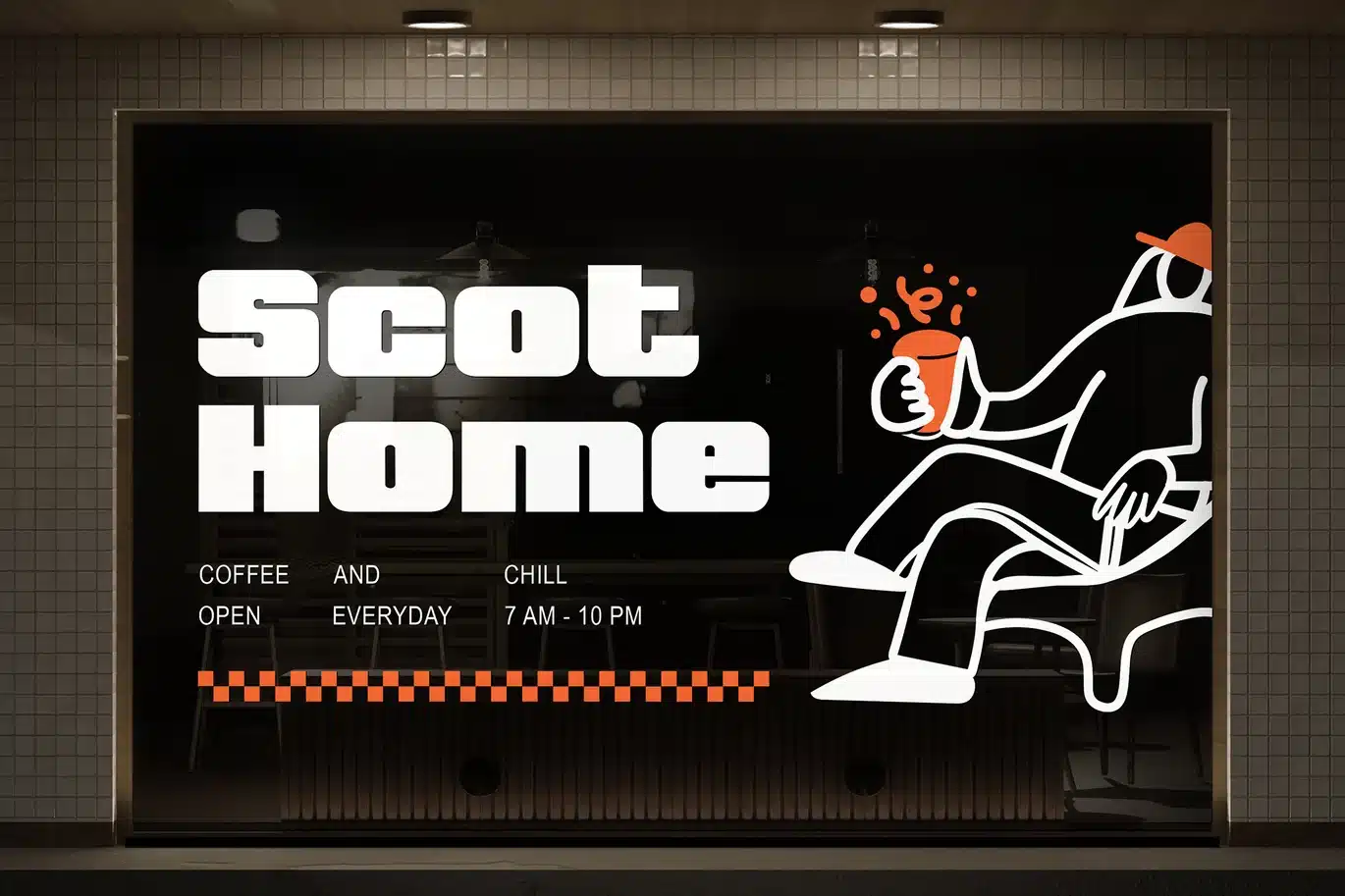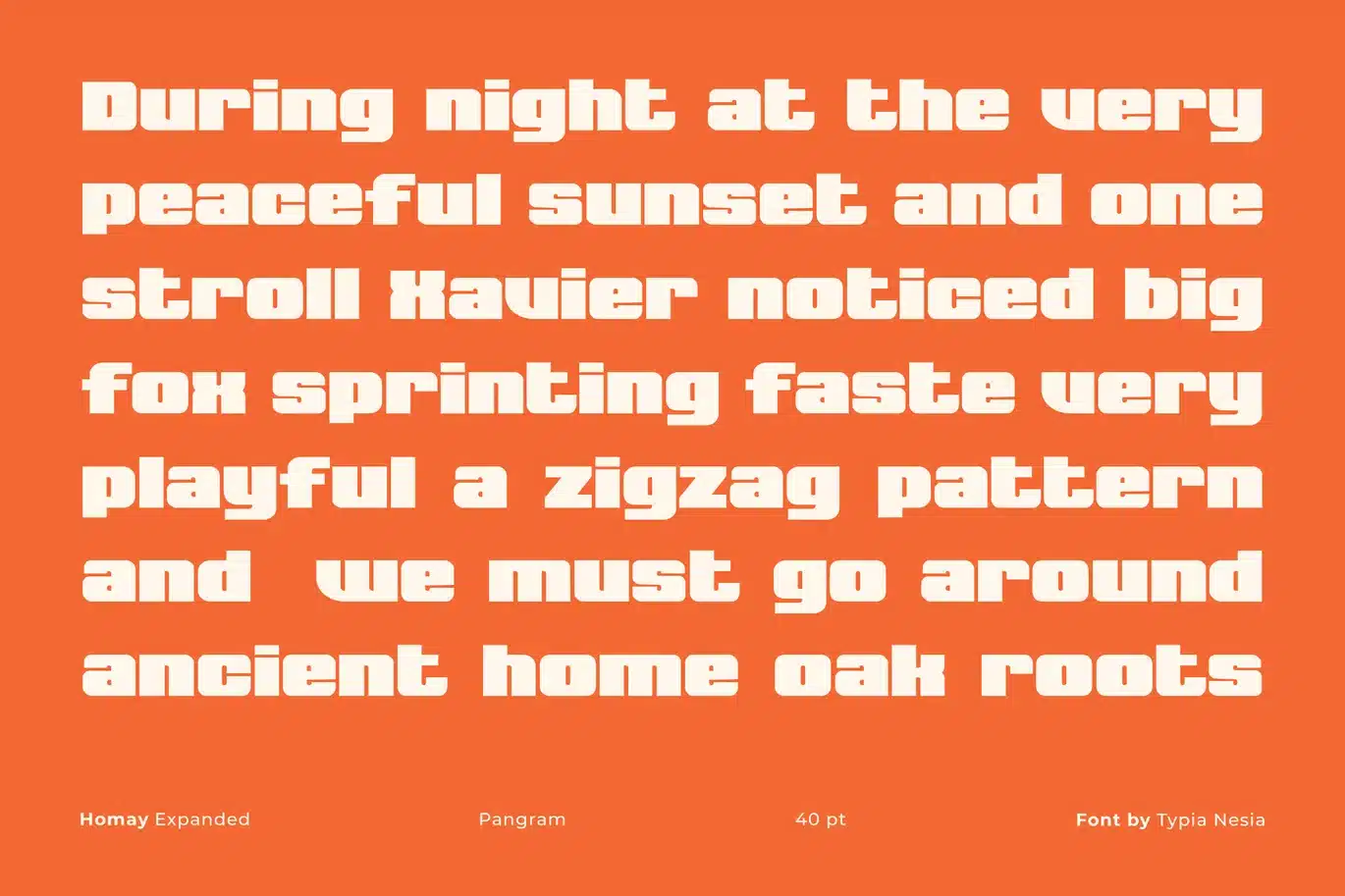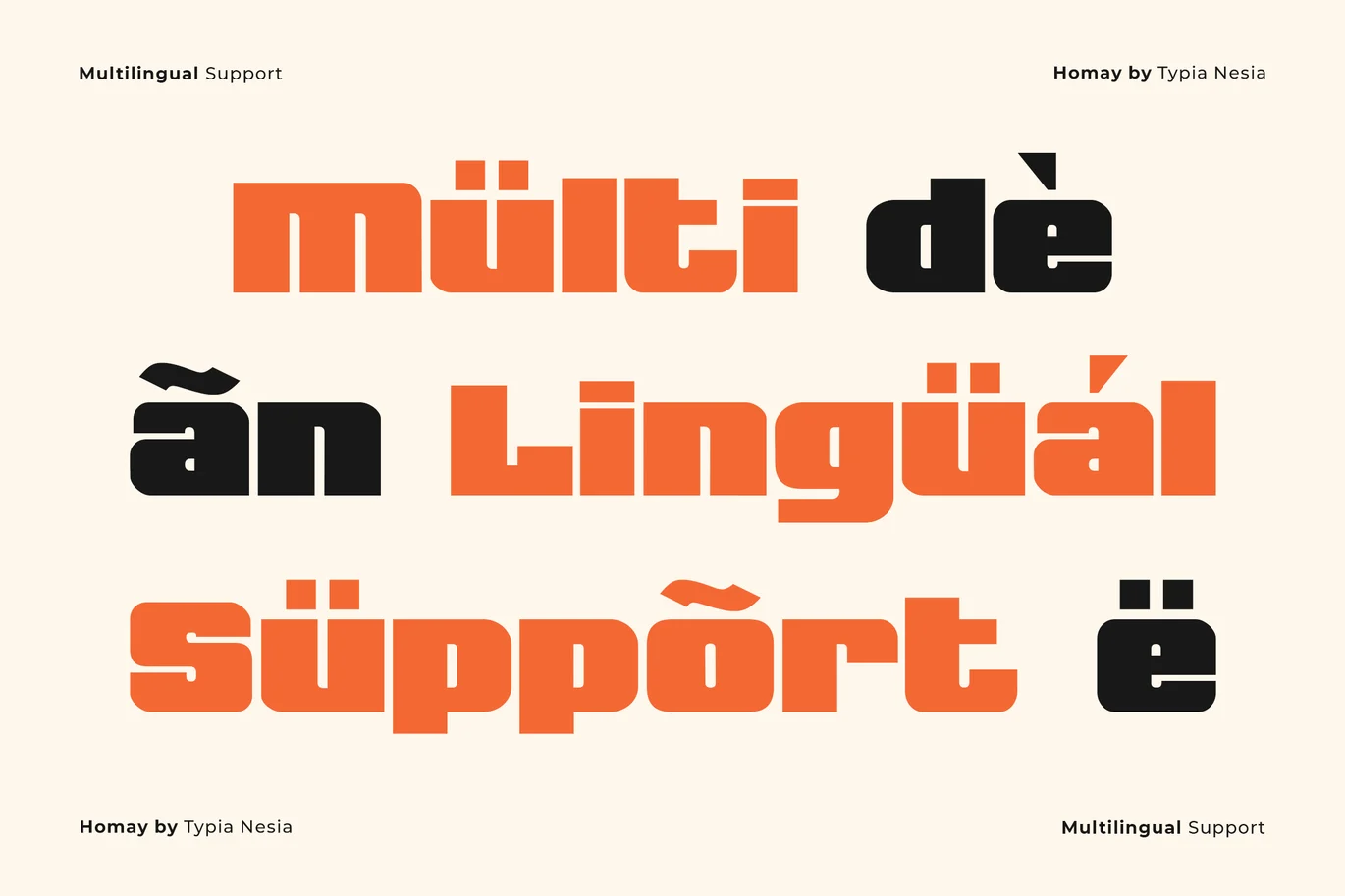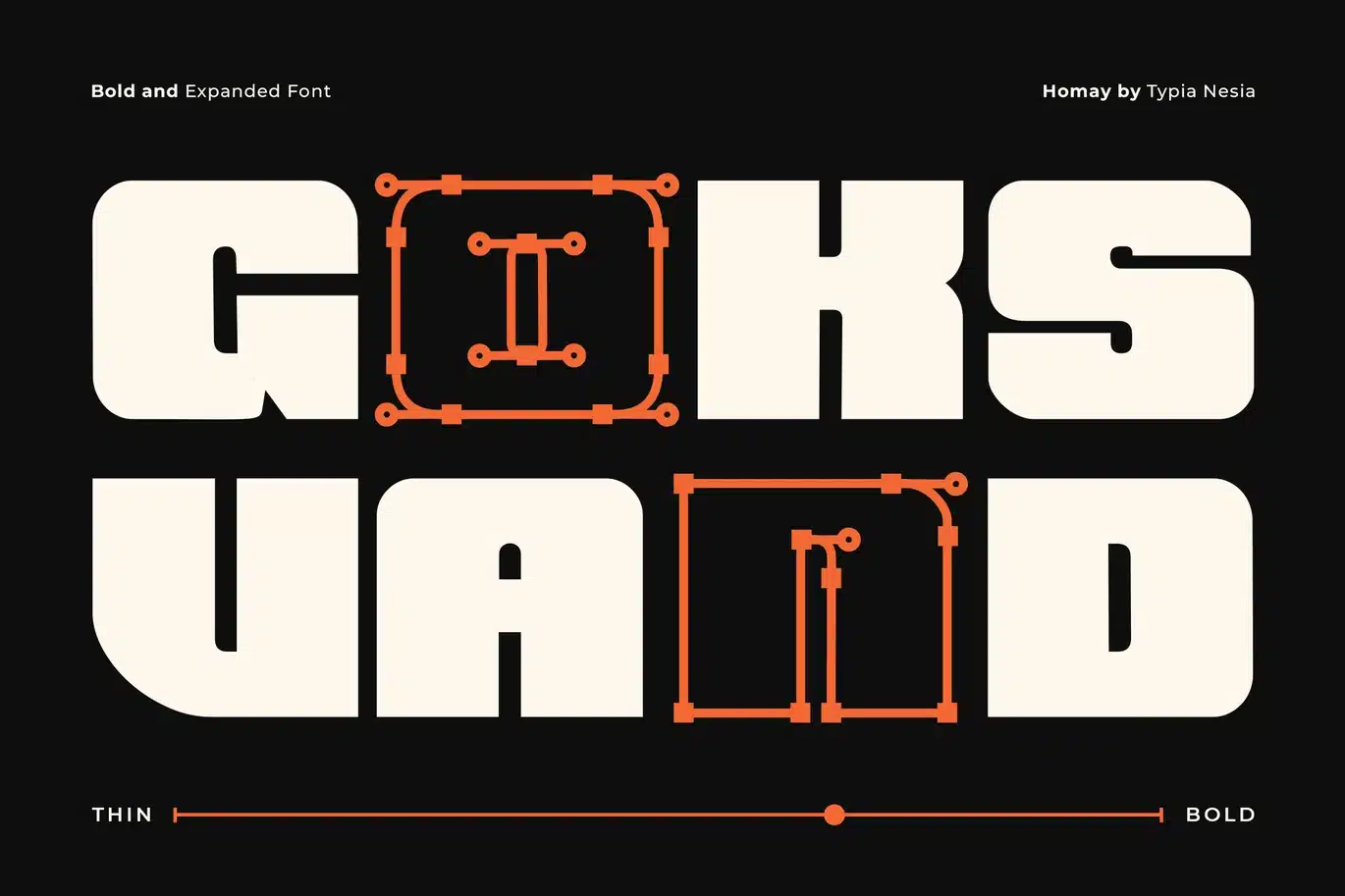
Homay – Bold Modern Expanded Retro Font
Homay - Bold Modern Expanded Retro Font - Logo Display Font
Homay is a bold and modern expanded retro font that seamlessly blends contemporary minimalism with nostalgic charm. Inspired by mid-century retro typography and modern geometric structures, Homay brings a warm and inviting feel to lifestyle branding. It is an ideal choice for bakery shopfronts, coffee shop menus, café branding, interior design concepts, luxury packaging, home décor labels, café signage, modern web interfaces, high-end poster designs, logo identities, and any project that requires a confident and stylish presence. This font’s versatile character ensures a premium look across both print and digital media.